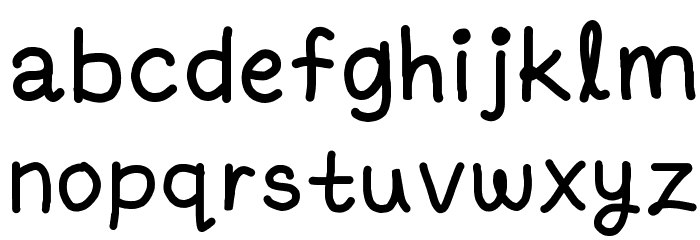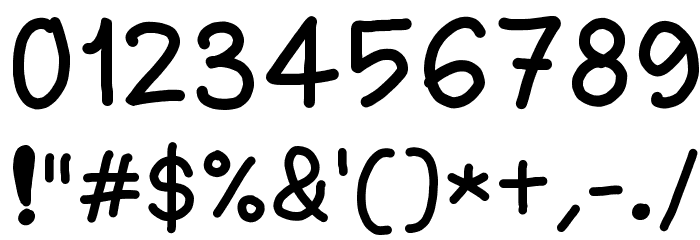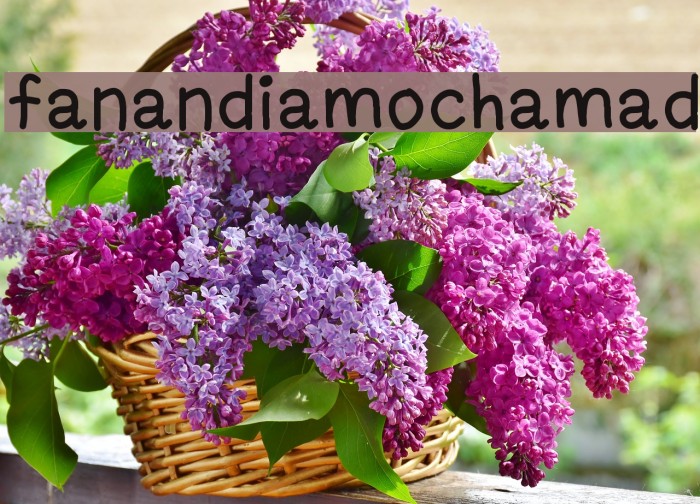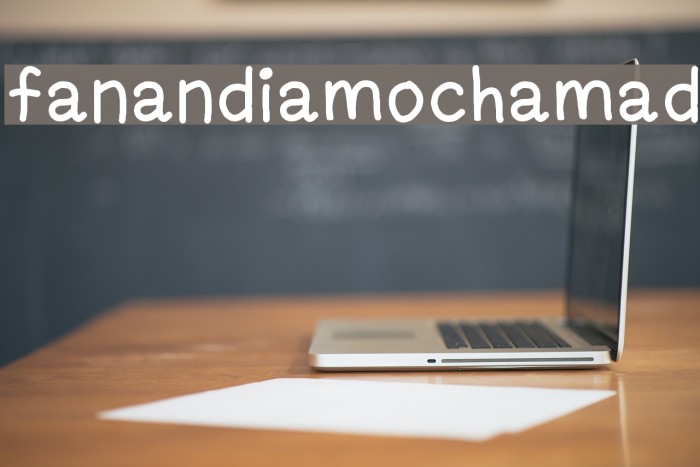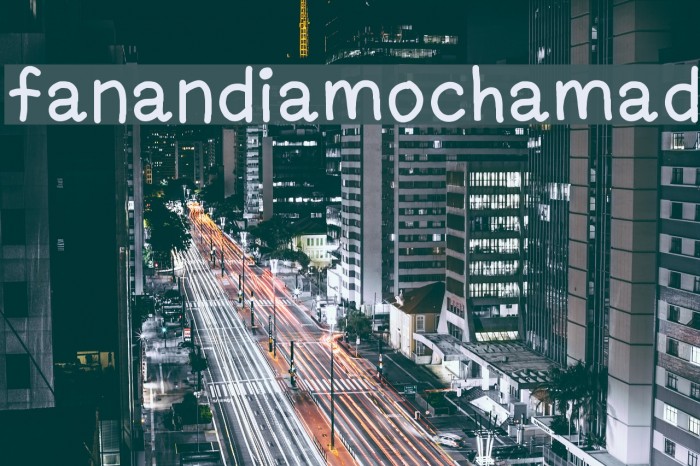
fanandiamochamad Font
This playful and whimsical font features a handwritten style with rounded edges and a casual, friendly appearance. The characters are slightly uneven, giving it a natural and organic feel. The uppercase letters are bold and prominent, while the lowercase letters maintain a consistent flow, enhancing readability. Numbers and special characters are designed to match the playful aesthetic, making this font versatile for various creative projects. Its informal style is perfect for adding a personal touch to designs.
A playful, handwritten font with rounded edges and a casual style.
- Proposed Projects: Ideal for children's books, greeting cards, playful branding, and informal invitations.
- Overall Style: Casual, Playful
- Use Case: Headlines, Logos, Informal Text